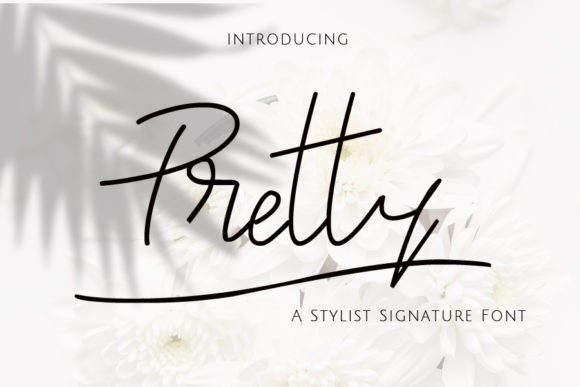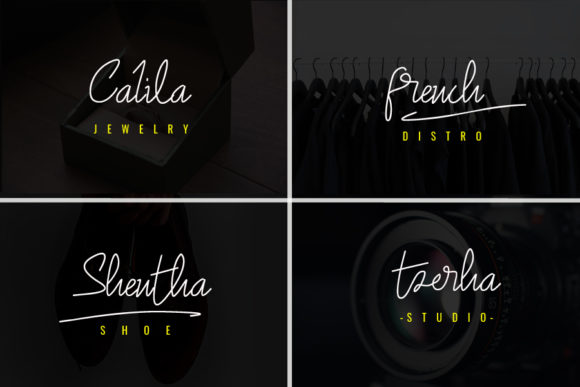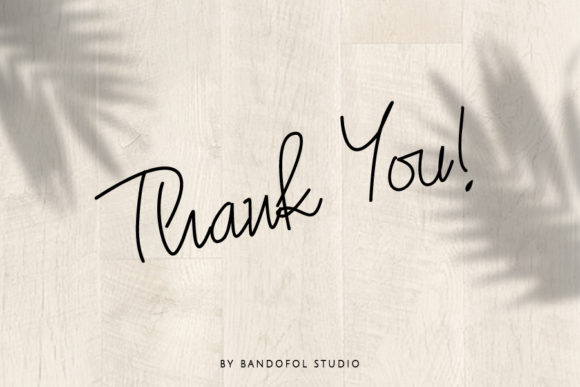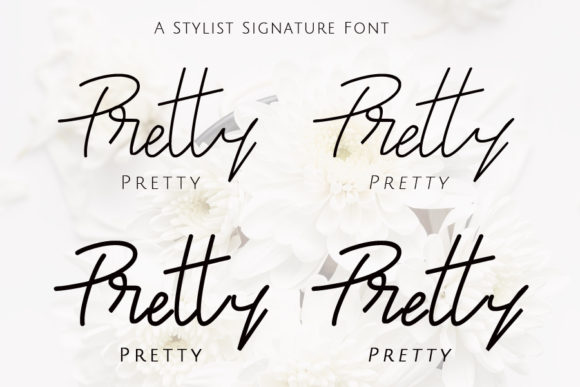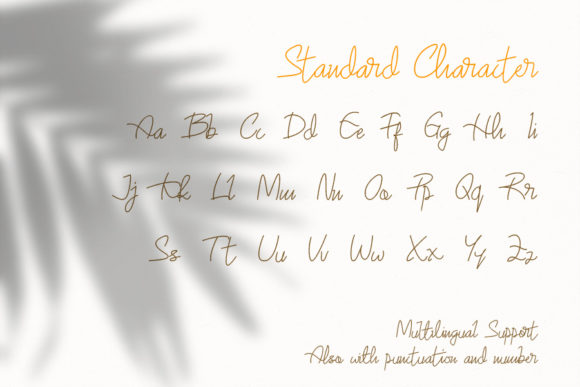
Pretty Font
About Pretty Font
Pretty is a relaxed and timeless handwritten font. It looks stunning on wedding invitations, thank you cards, quotes, greeting cards, logos, business cards and every other design which needs a handwritten touch.